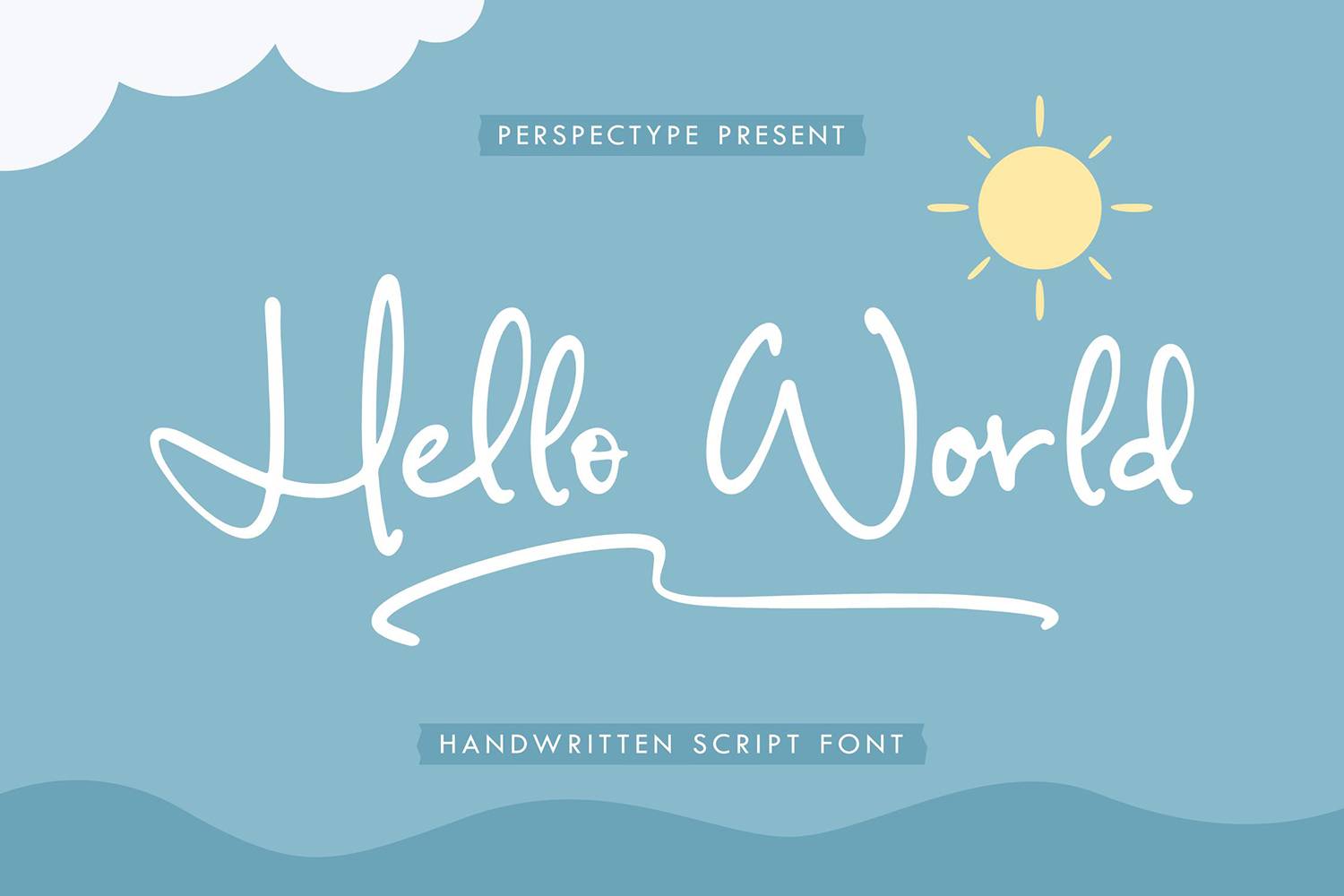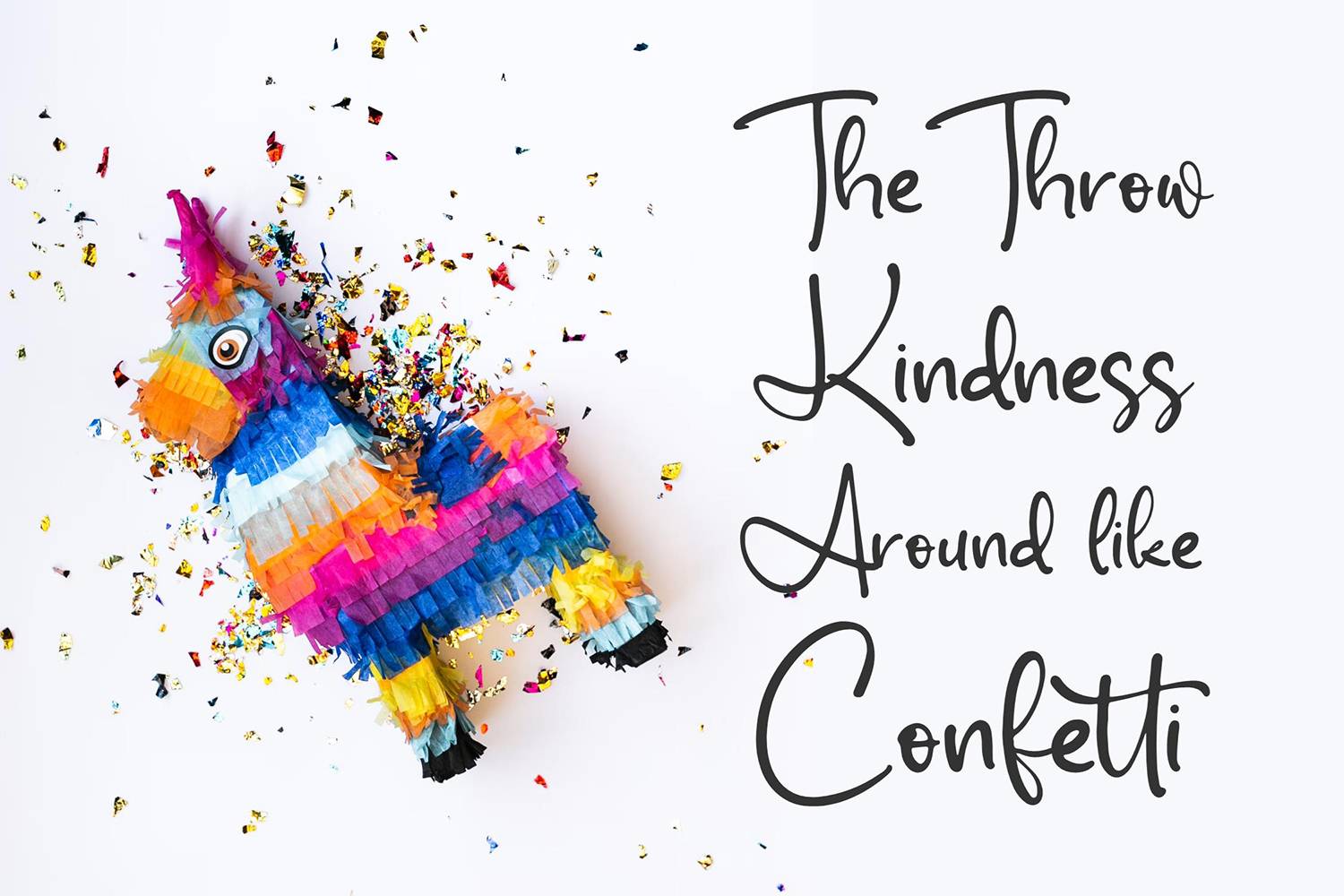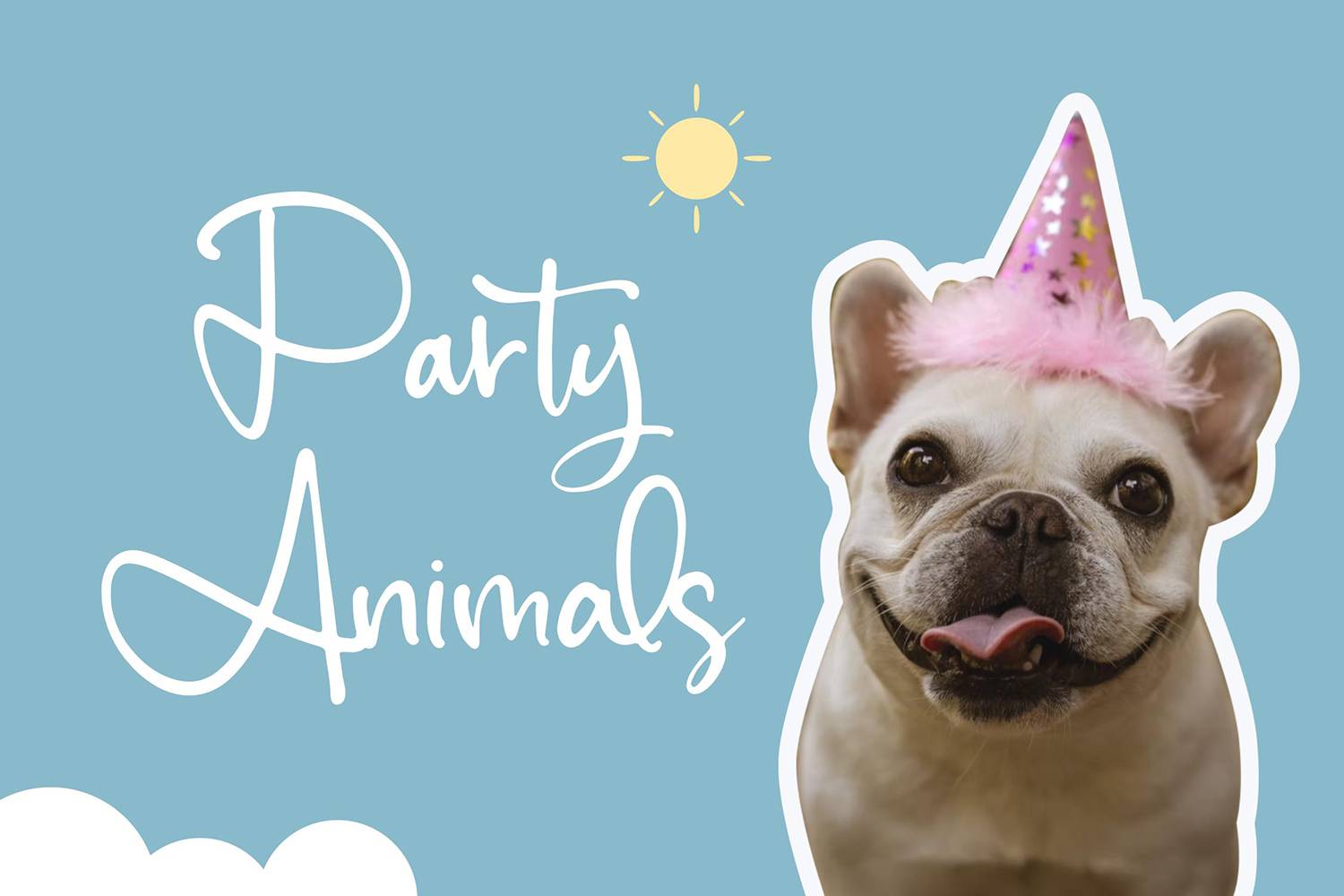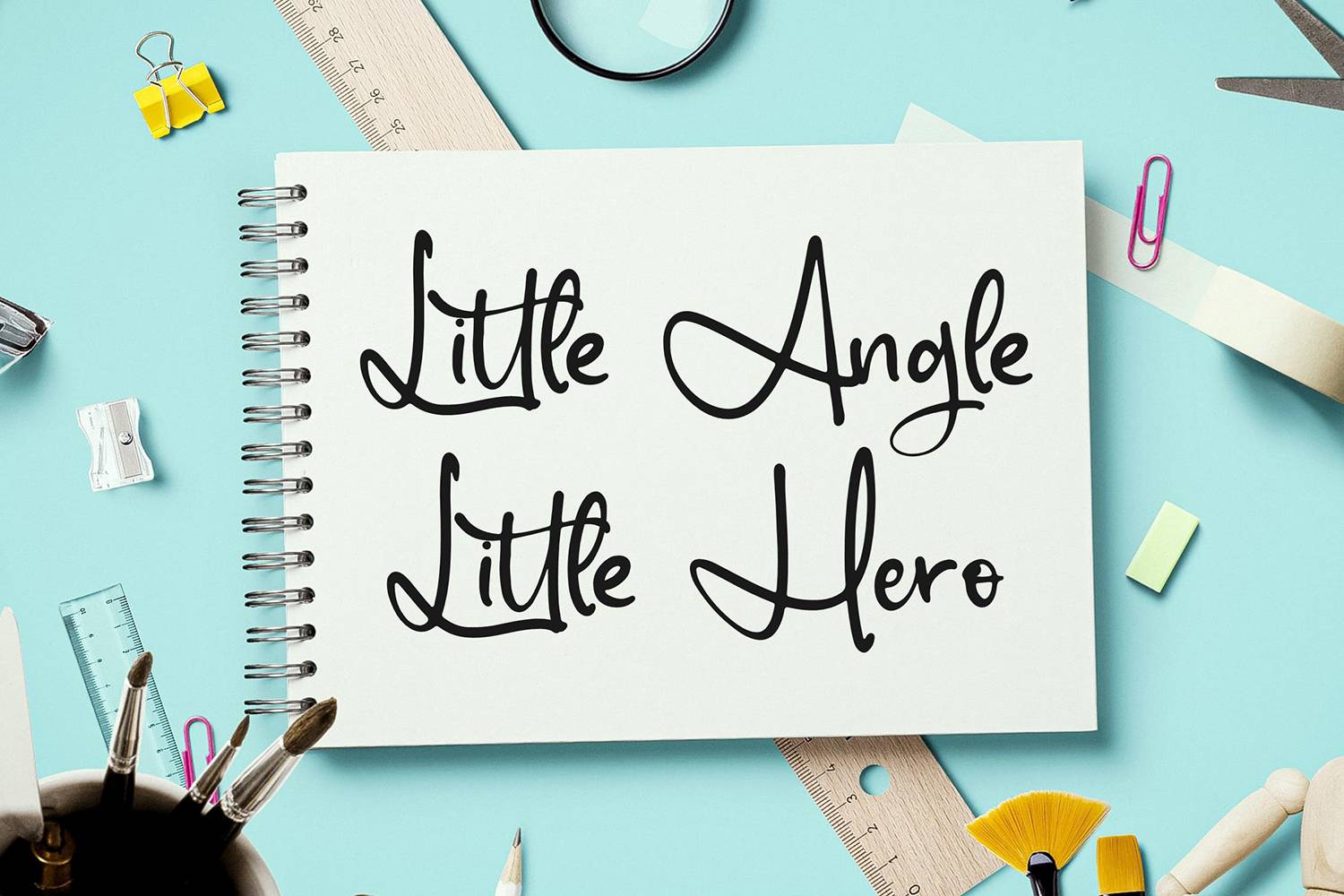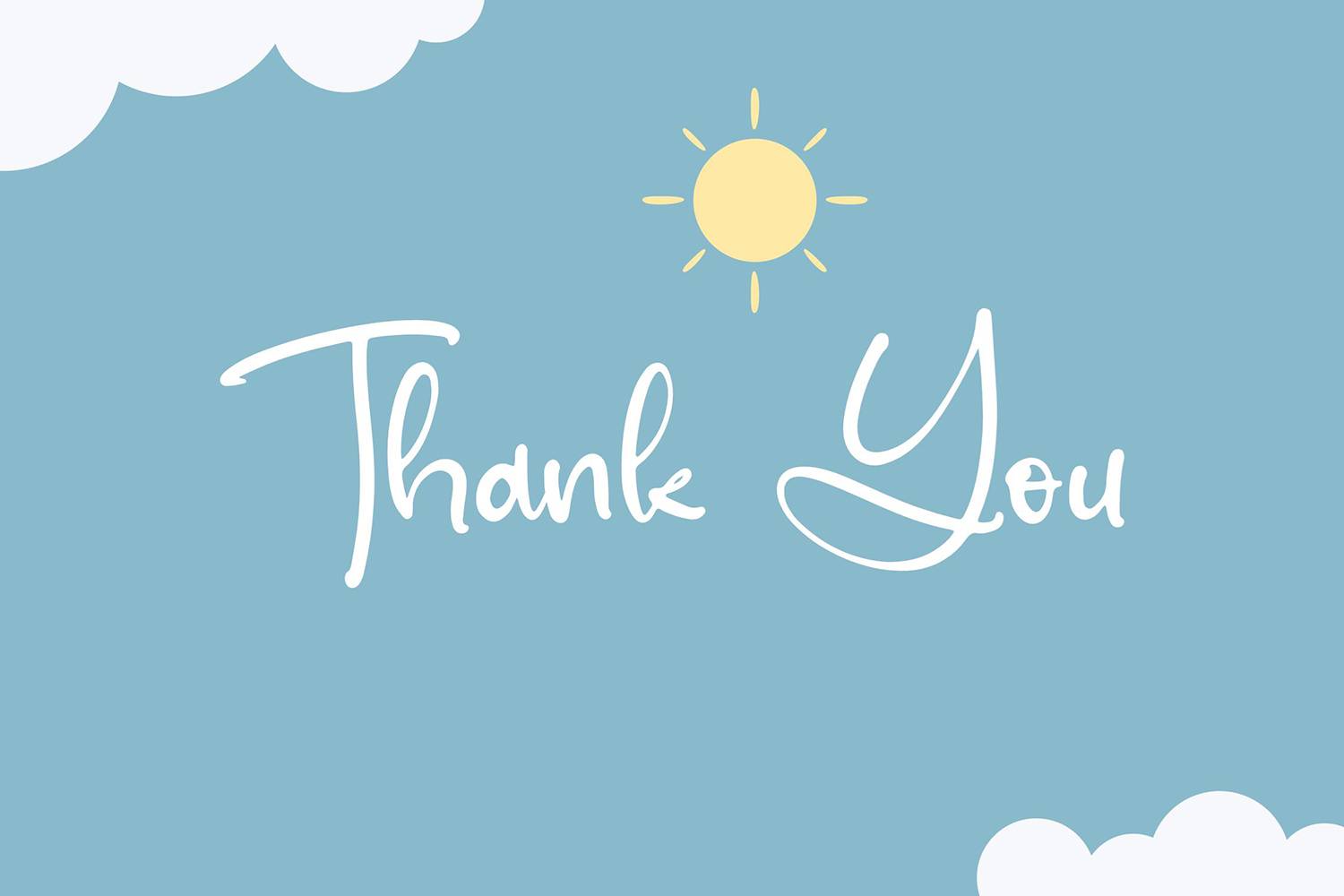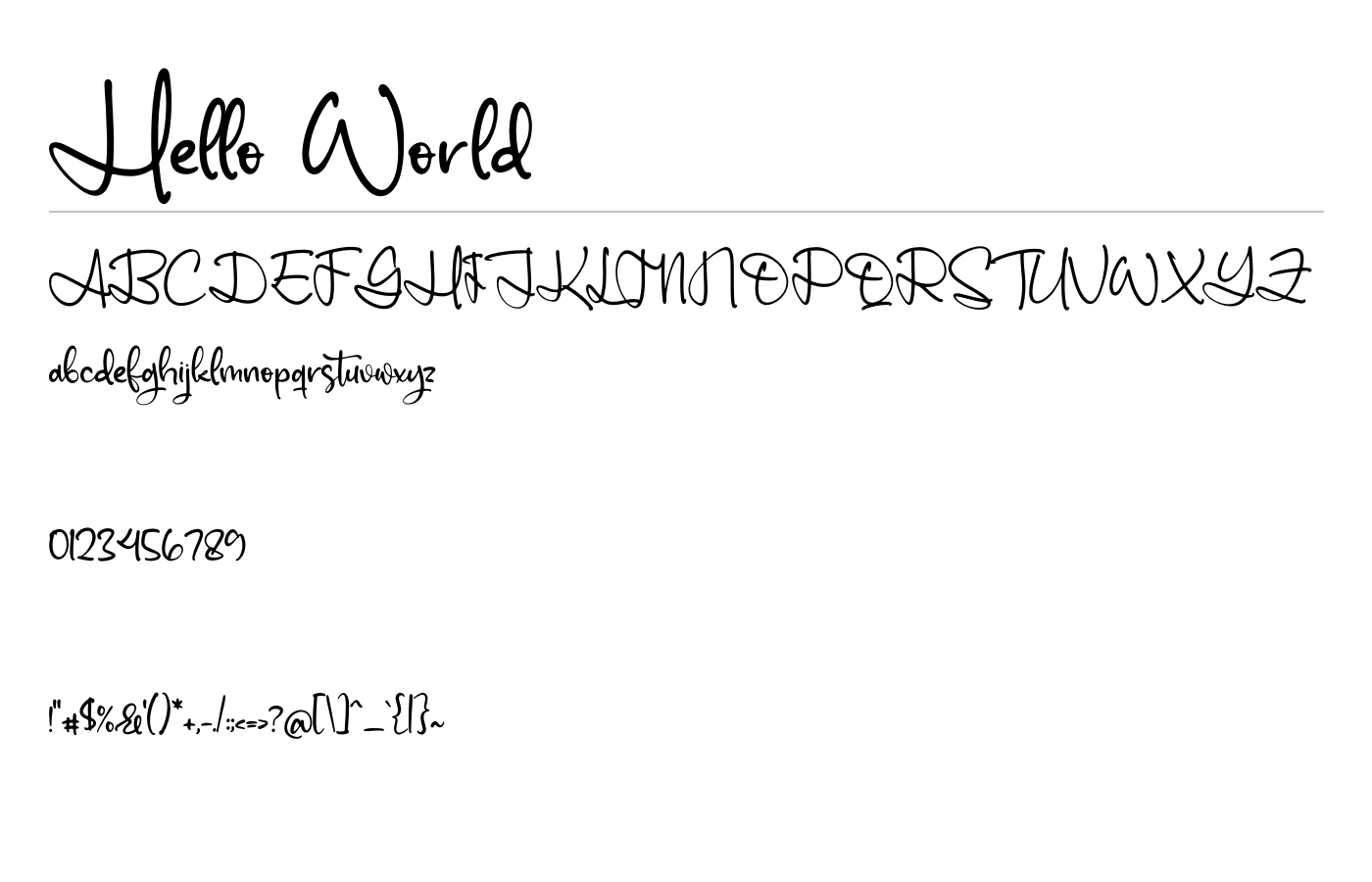
Hello World Font is a playful, handwritten script that combines casual charm with a unique, slightly quirky style. Its thin, fluid strokes and lively letterforms give it a friendly, informal feel, making it ideal for creative projects, personal branding, and designs that want to convey warmth and approachability. This font works best for headlines, invitations, and branding that seeks a personal, whimsical touch.
Hello World Font
About Hello World Font